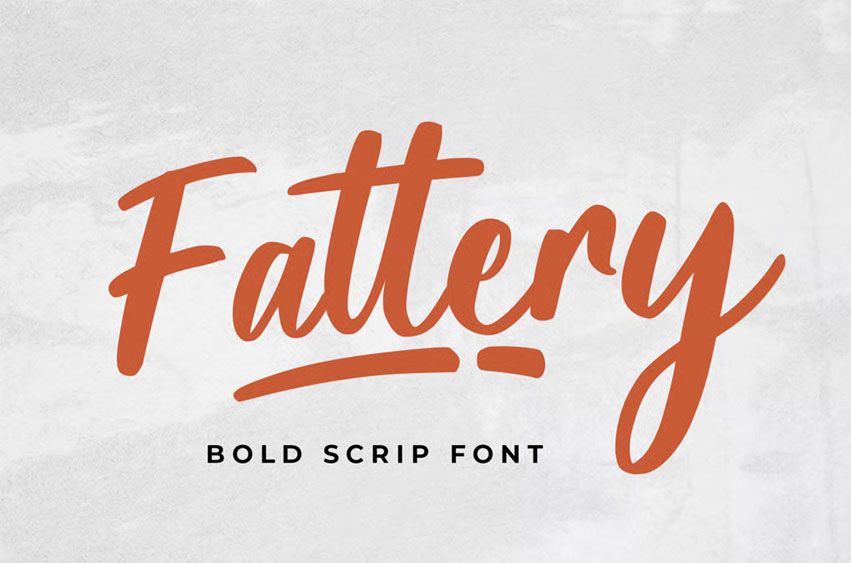
Fattery Font is a bold script font designed to bring confident energy and expressive charm to your creative projects. With its thick strokes and handwritten curves, Fattery adds a handcrafted feel to your logos, social media graphics, product packaging, and bold headlines.
Whether you’re working on a modern brand, lifestyle content, or personal design project, Fattery delivers a dynamic look that feels both strong and approachable. Ideal for logos, quote designs, signage, T-shirt prints, and display titles.
Font Features:
• Bold & Playful Stroke: Fattery offers high readability with a thick, expressive handwritten style that pops on any background.
• Complete Character Set: Includes uppercase, lowercase, numerals, punctuation, and symbols.
• Underline Swashes: Comes with 4 stylish underline swashes to enhance your design compositions.
• OpenType Features: Access stylistic alternates and ligatures for more customized typography.
• Multilingual Support: Supports a wide range of Latin-based languages.
Fattery is perfect for adding a bold human touch to your creative work. Whether you’re designing eye-catching packaging or an energetic logo, this font brings character and clarity together.
• Bold Branding: Make your identity unforgettable with expressive letterforms.
• Social Media Posts: Add punch and flair to quotes or announcements.
• Product Packaging: Stand out on shelves with bold, clear branding.
• Poster Headlines: Grab attention instantly with thick, high-impact lettering.